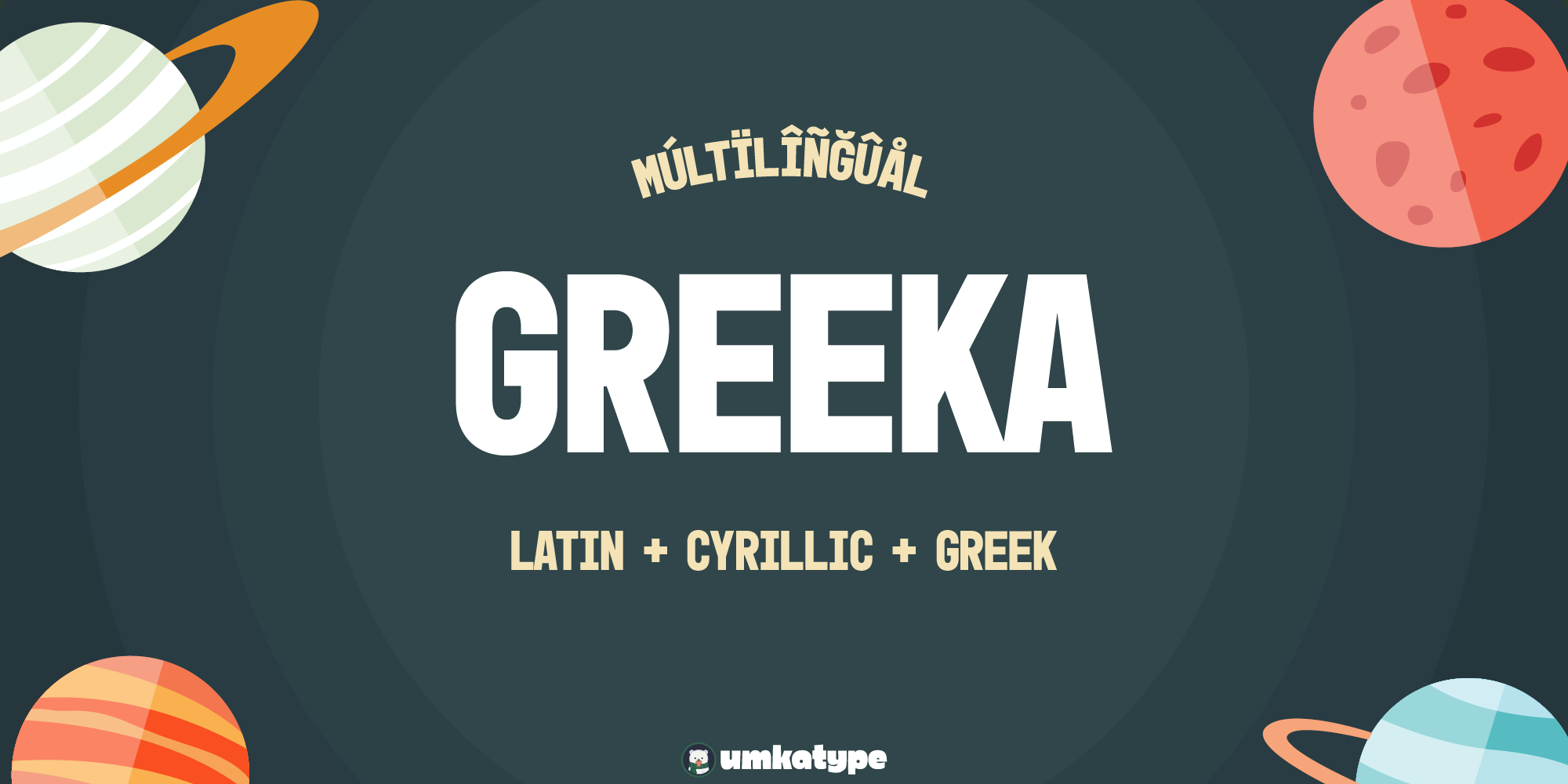
Greeka Font is ideal for Greek restaurant menus, Mediterranean travel brochures, ancient mythology book covers, classical philosophy publications, Greek island tourism materials, traditional taverna signage, cultural heritage exhibitions, and Hellenic society event programs. Its authentic Greek character makes it perfect for projects celebrating Greek culture and Mediterranean heritage.
What makes Greeka Font exciting is its remarkable ability to transport viewers to the sun-drenched islands of Greece through beautifully crafted letterforms that echo ancient Greek architectural principles and cultural traditions. The harmonious construction features classical proportions with Mediterranean warmth that captures the essence of Greek hospitality and timeless wisdom. This typeface embodies Hellenic heritage and philosophical depth, making every design feel culturally authentic and historically connected.
Greeka Font family includes Regular, Bold, Light, Italic, Ancient, and Ornamental variations, offering designers comprehensive tools for creating captivating Greek-inspired typographic compositions that honor Mediterranean traditions.
Embrace timeless Greek elegance with the cultural authenticity of Greeka Font Free Download. This distinguished typeface brings Mediterranean sophistication to any creative project, whether you're developing brand identities for Greek businesses, crafting promotional materials for cultural organizations, or designing publications celebrating Hellenic traditions. The font's classically-inspired architecture and Greek presence make it essential for projects requiring authentic Mediterranean appeal. Greeka Font perfectly captures the essence of Greek civilization while ensuring optimal readability across all cultural applications. Its harmonious character forms and Hellenic-inspired design language make it ideal for brands seeking to communicate cultural heritage and Mediterranean warmth, delivering memorable results that connect with audiences who appreciate ancient wisdom, Greek hospitality, and the enduring beauty of classical Greek culture and philosophy.